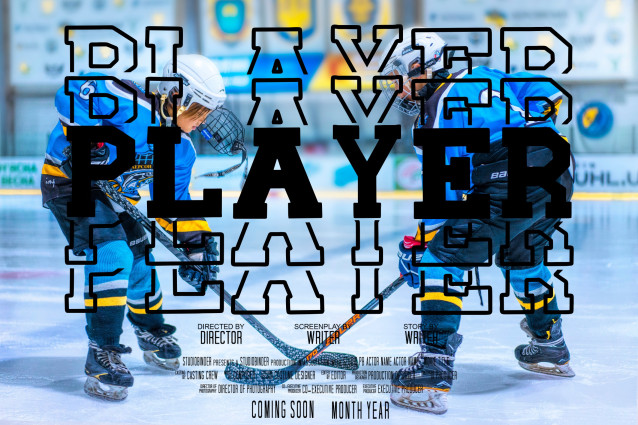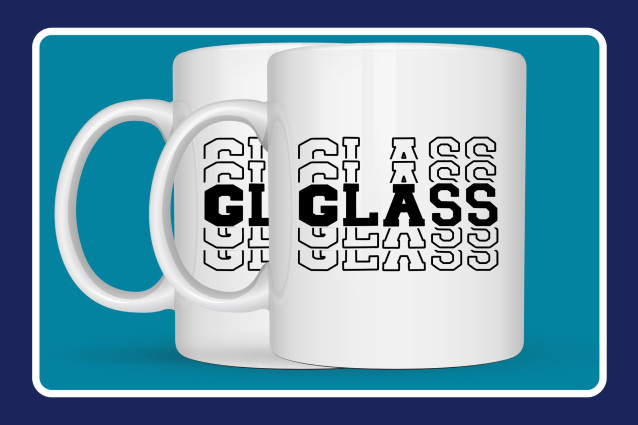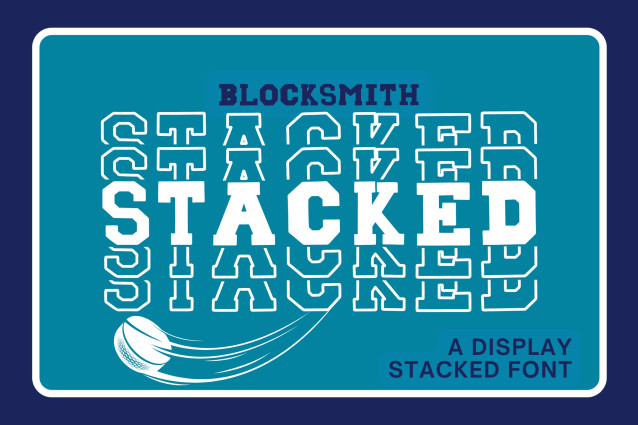
Blocksmith Stacked Font
Blocksmith Stacked takes the bold look of varsity block letters and builds them into a layered, stacked style for maximum impact. With its powerful presence and dimensional design, this font is perfect for sports graphics, team logos, posters, and standout merchandise. Whether used solid, stacked with outlines, or layered with colors, Blocksmith Stacked gives your designs that classic yet modern varsity edge.